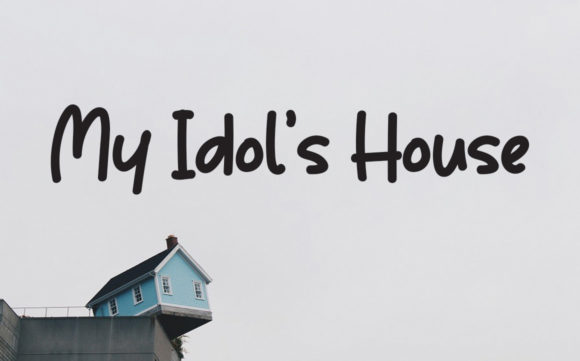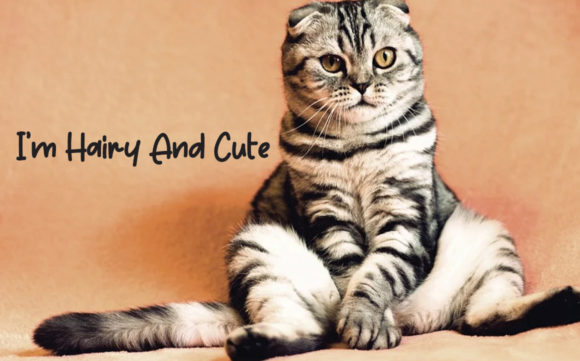
Boho School Font
db-ku.com - Script & Handwritten -- Boho School is a cute and adaptable, brushed handwritten font. It can easily be matched to an incredibly large set of projects, so add it to your creative ideas and notice how it makes them stand out!